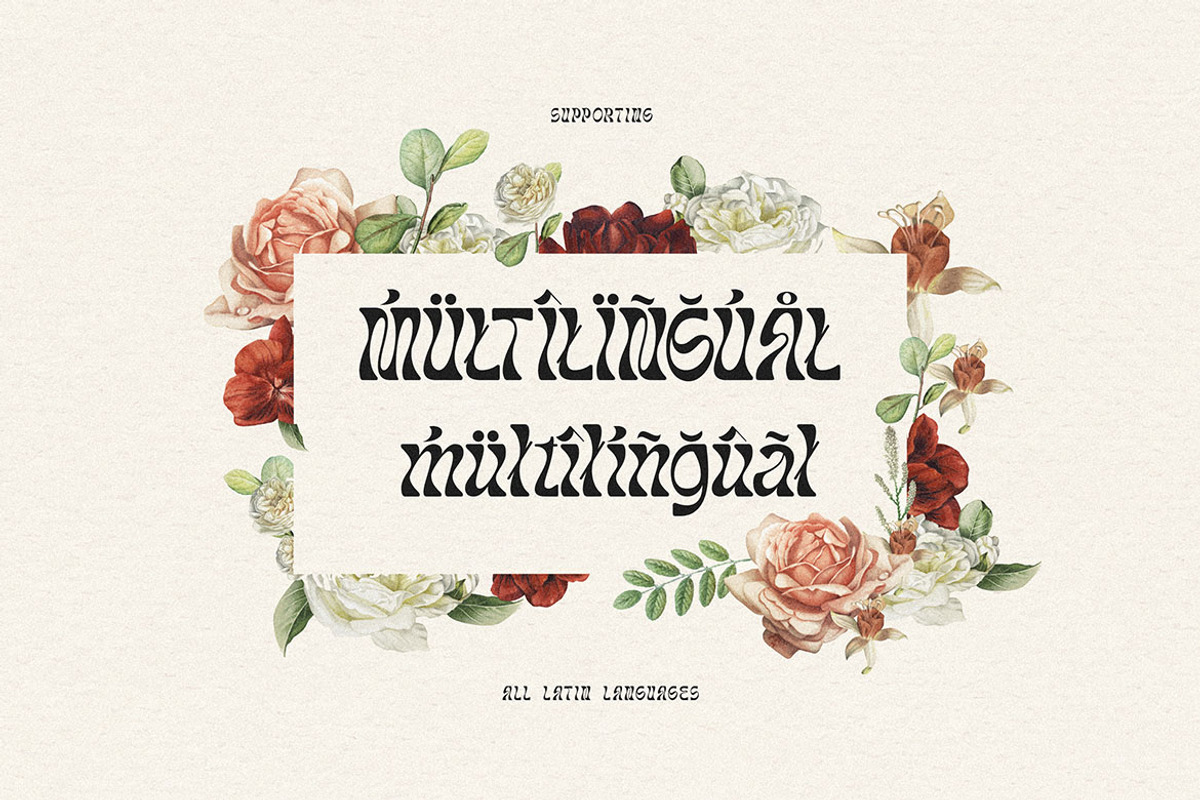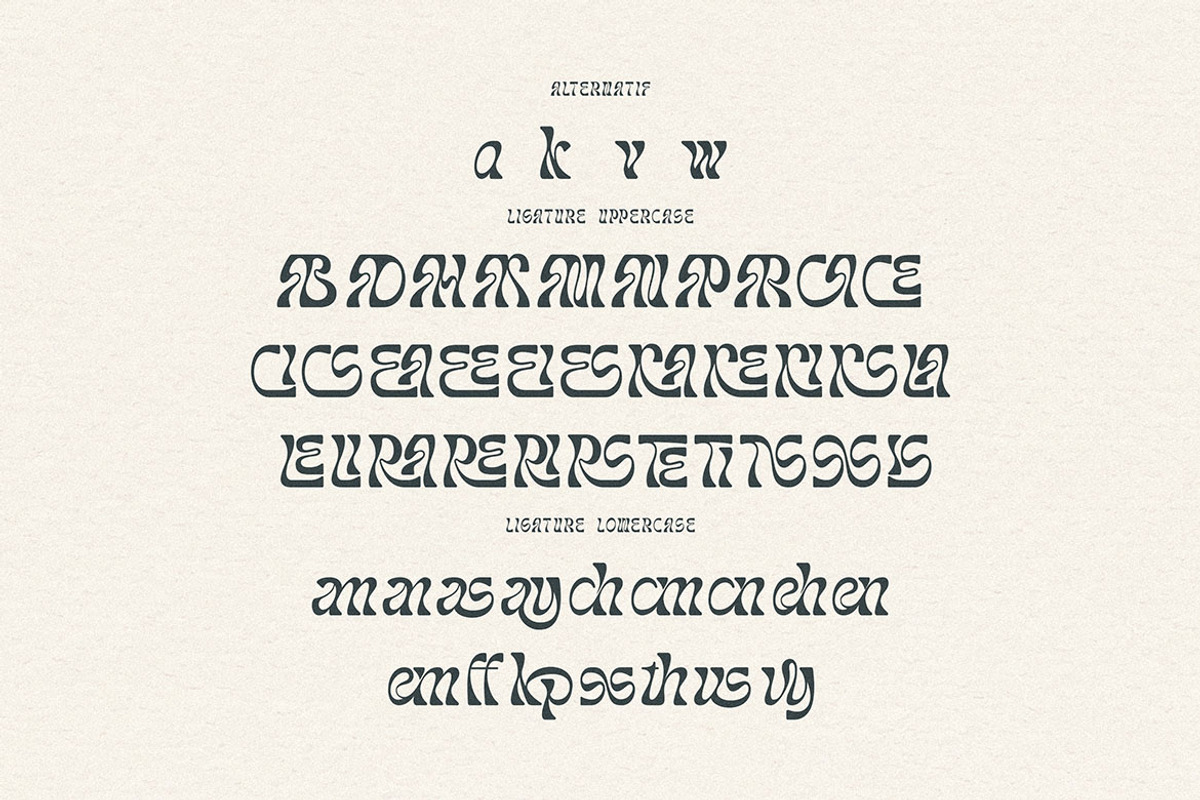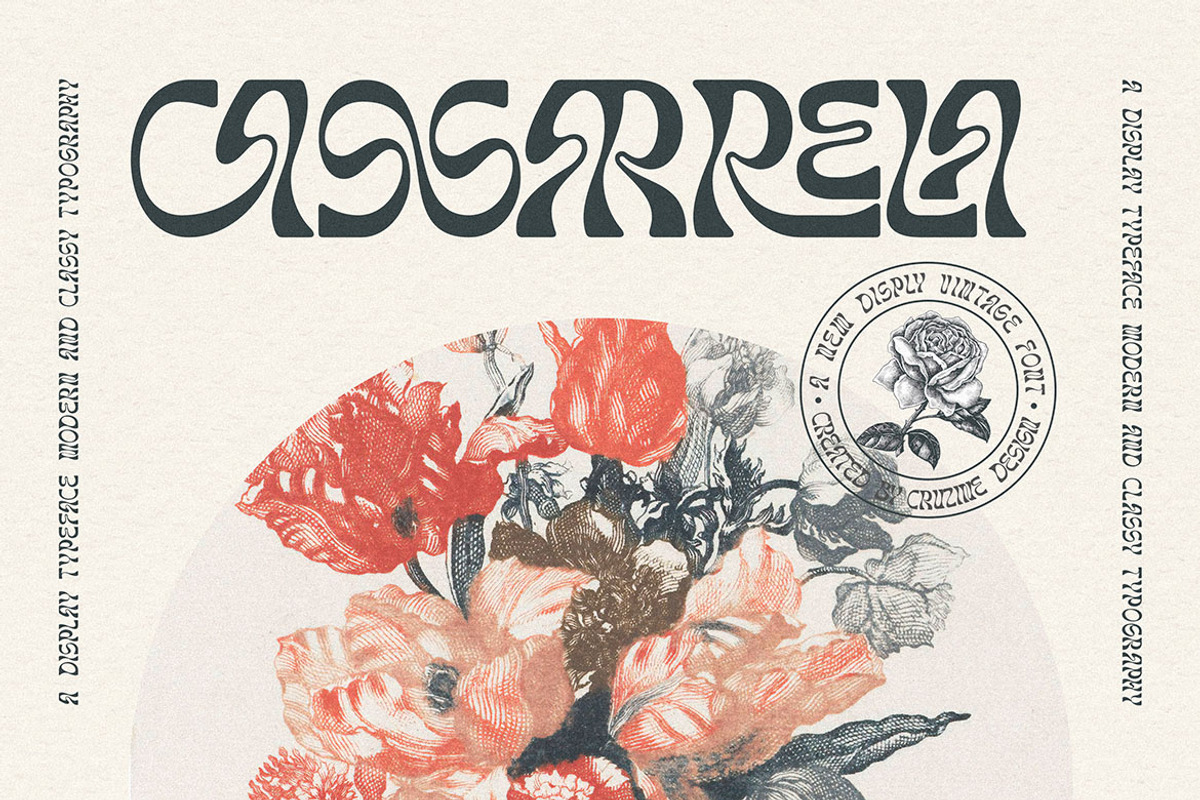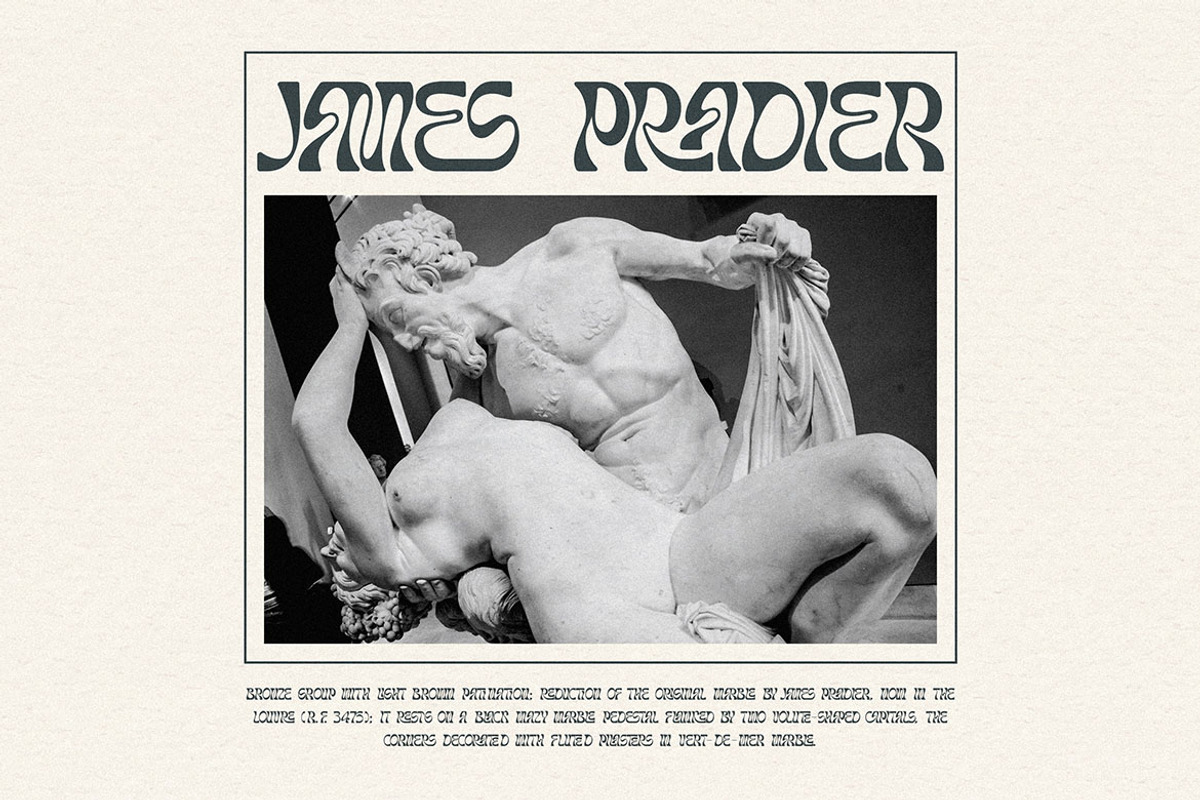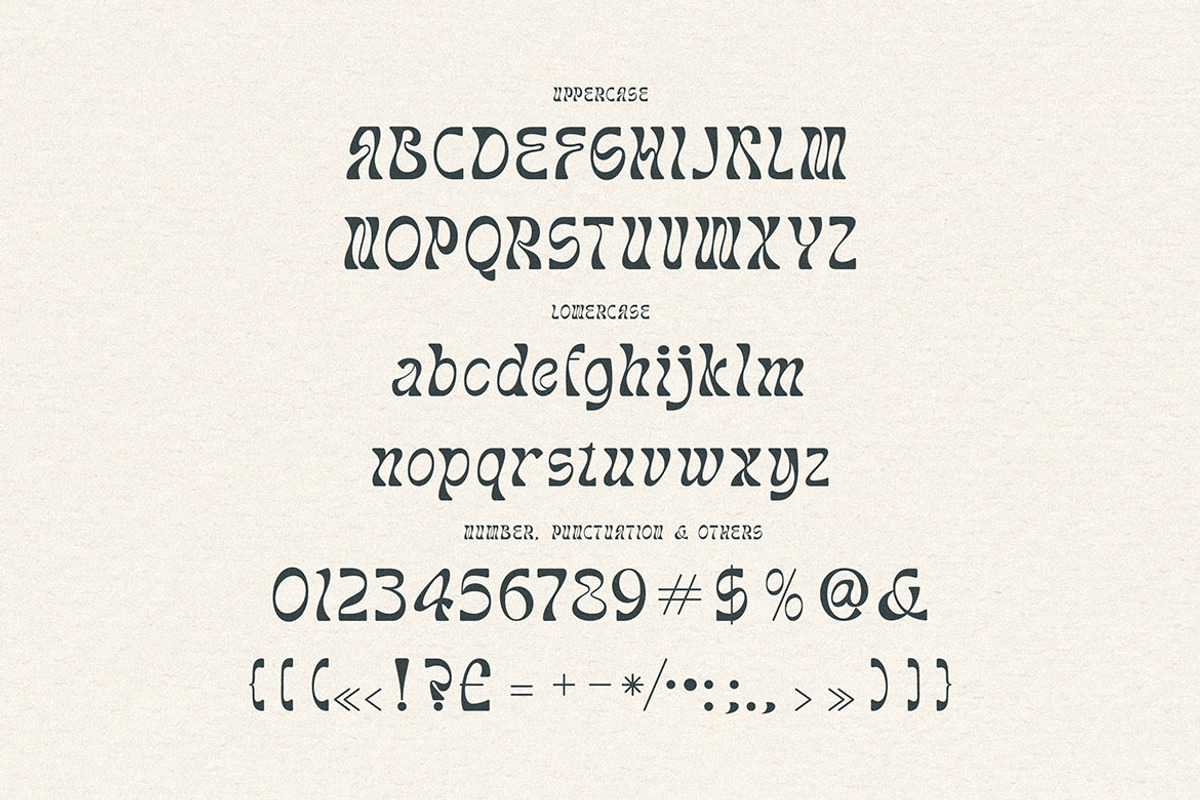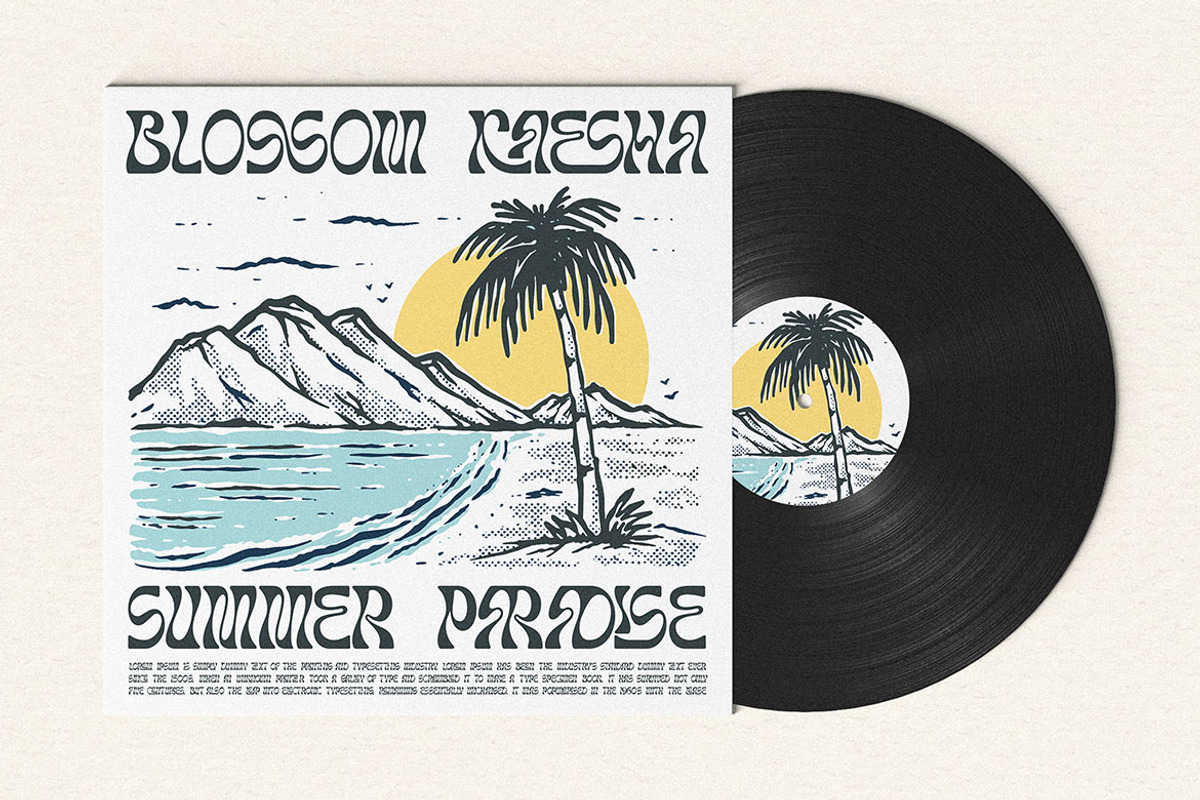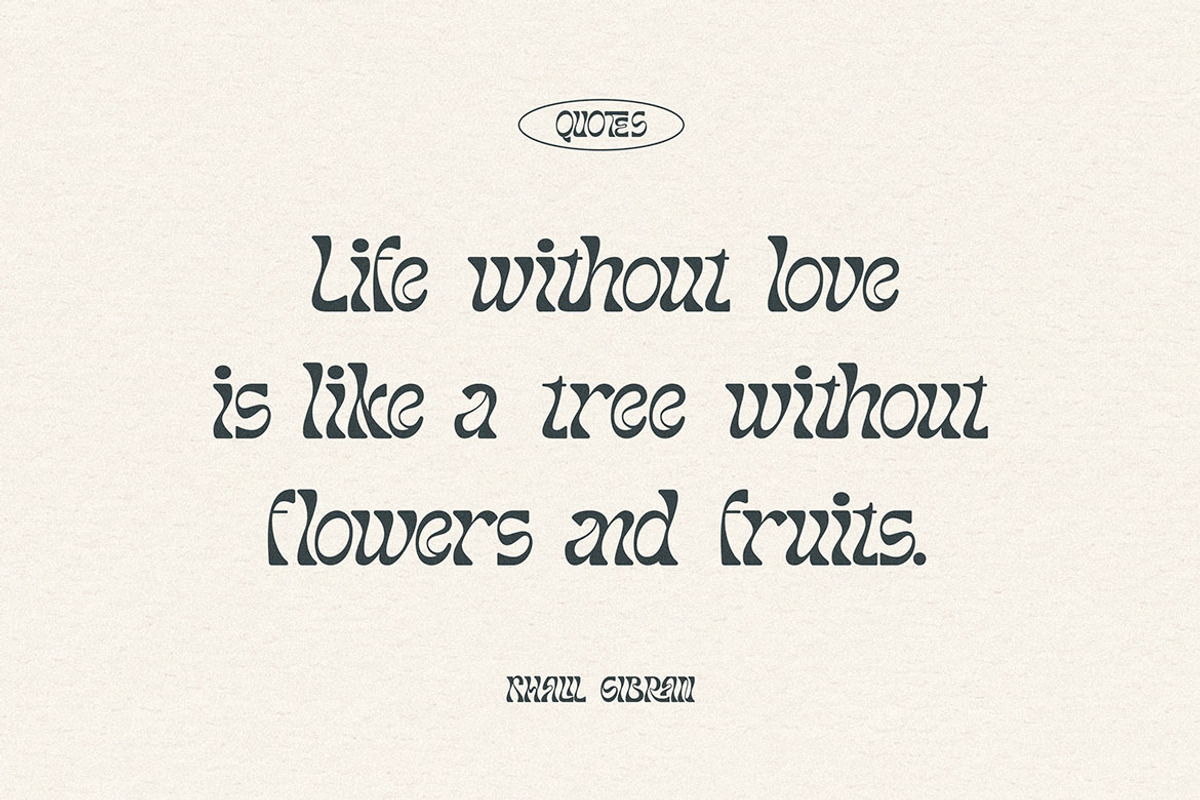
Trendy, groovy, crazy & retro style font for your new crazy projects. Elegant, artistic and funky style on Cassarrela font will be great for any branding project. Lot of alternates and ligatures will help you to create unique and original logo design or website header! Enjoy :)
- Alternate characters
- Lot of ligatures
- Great for modern branding projects!